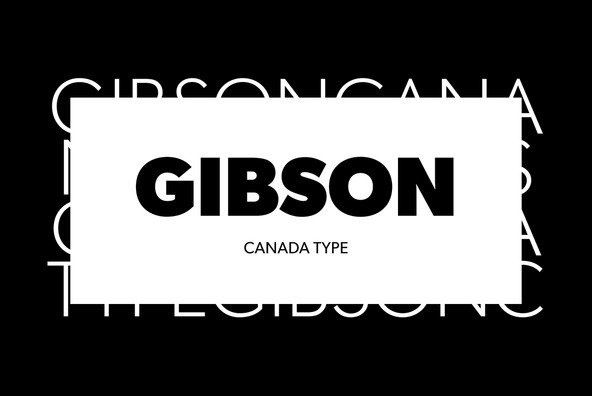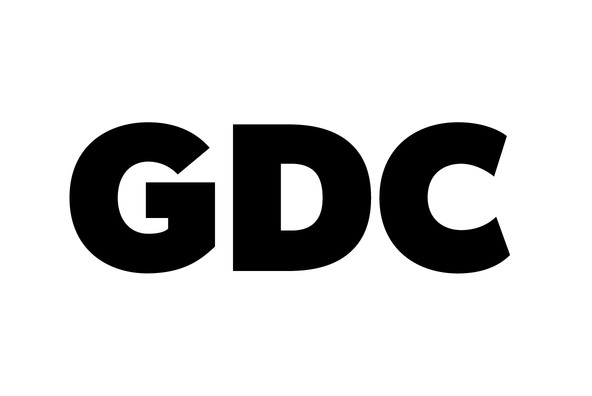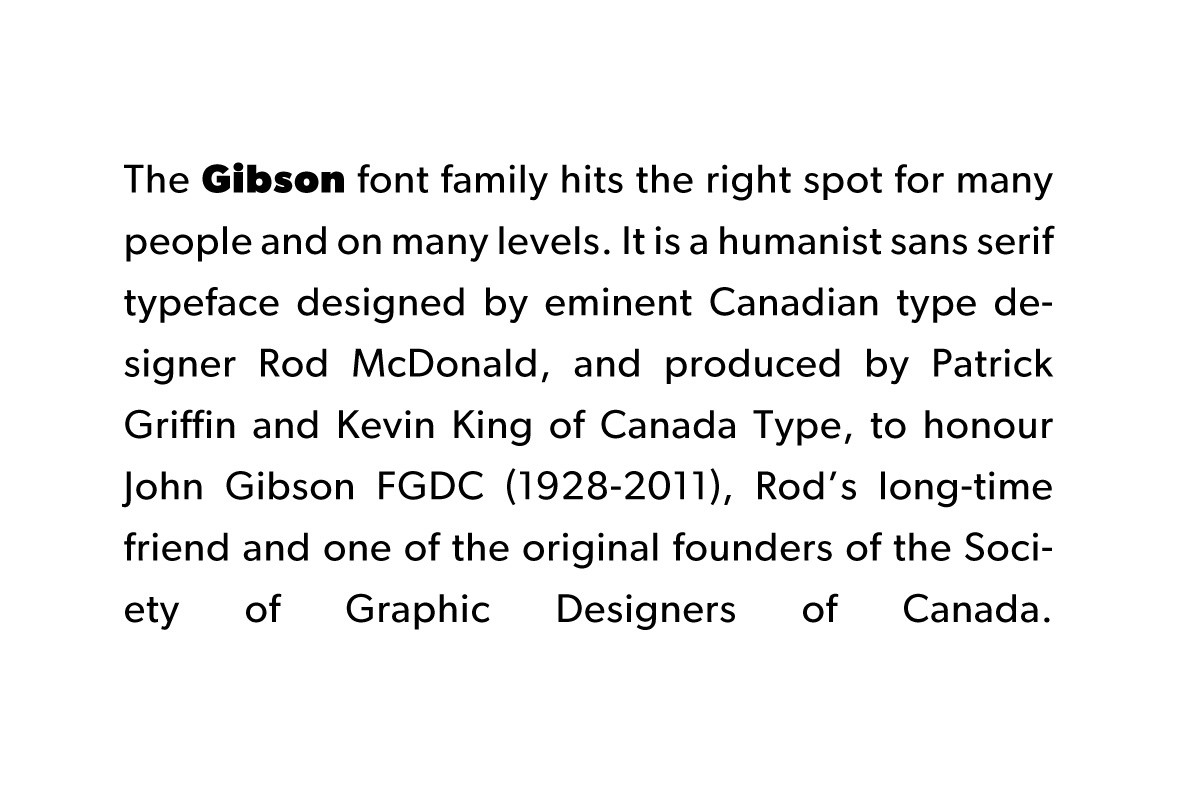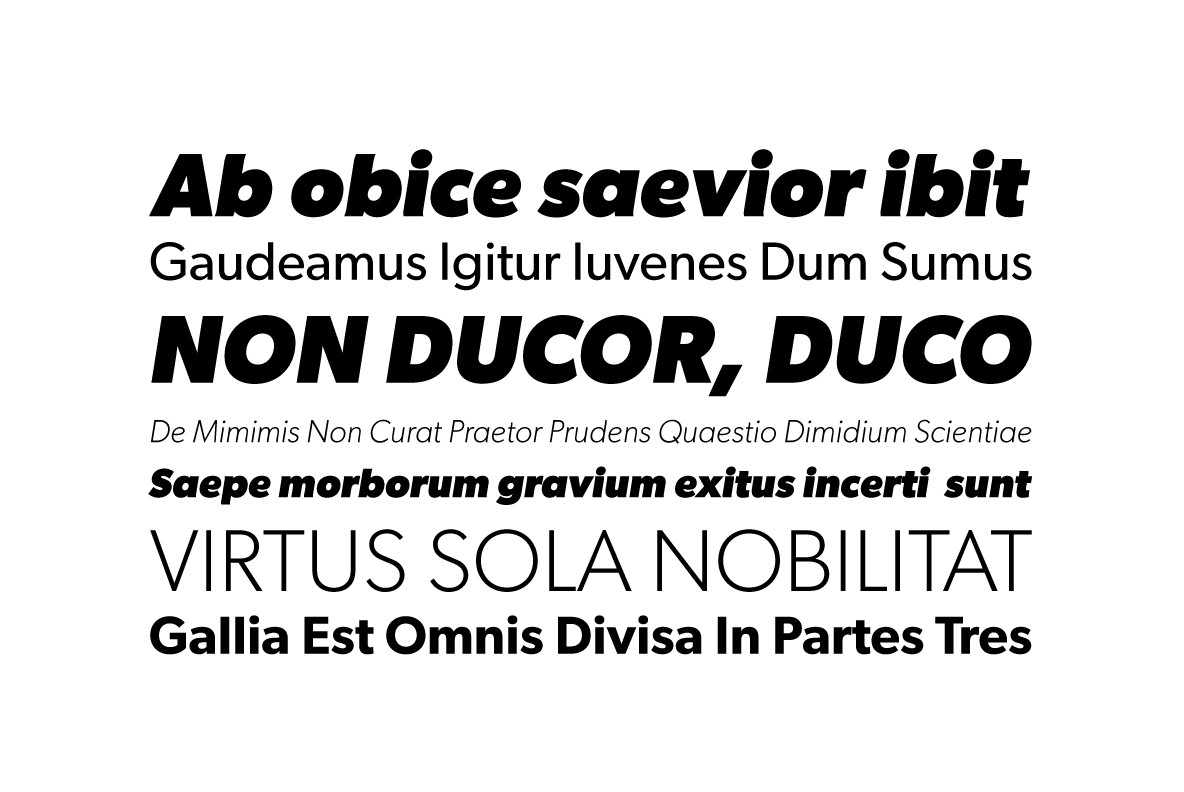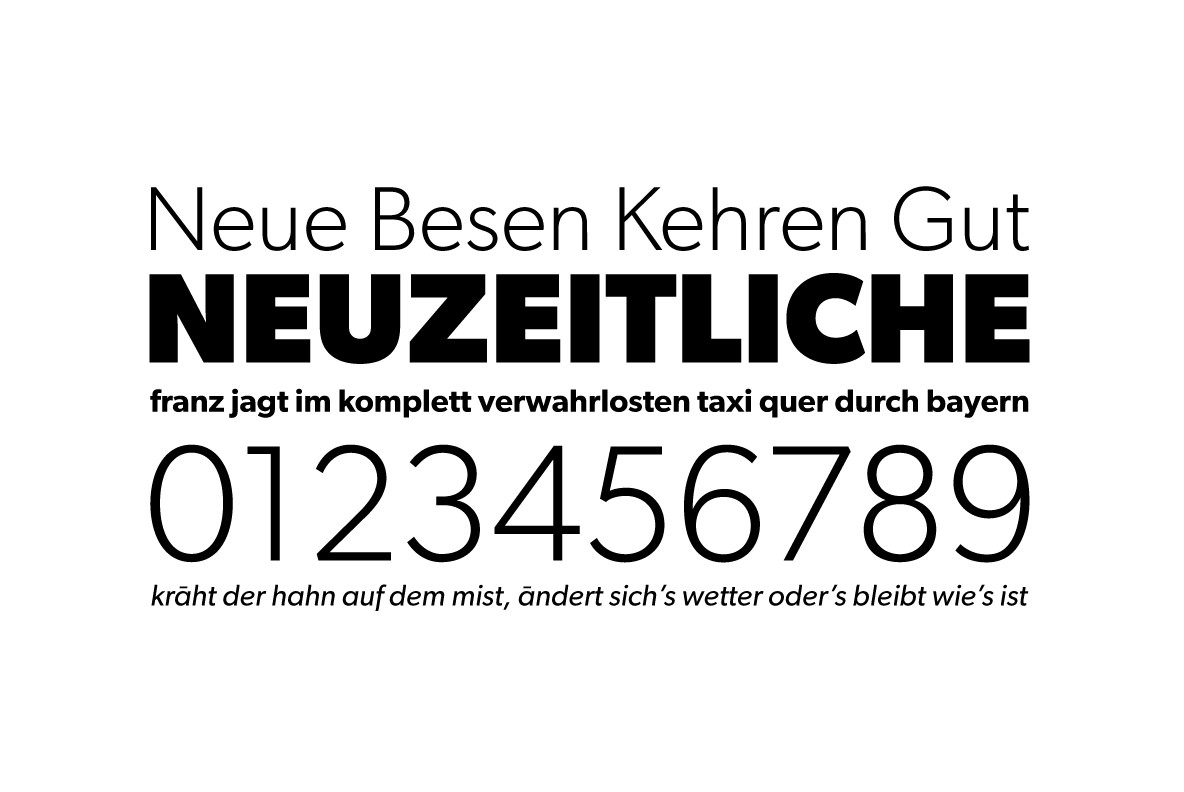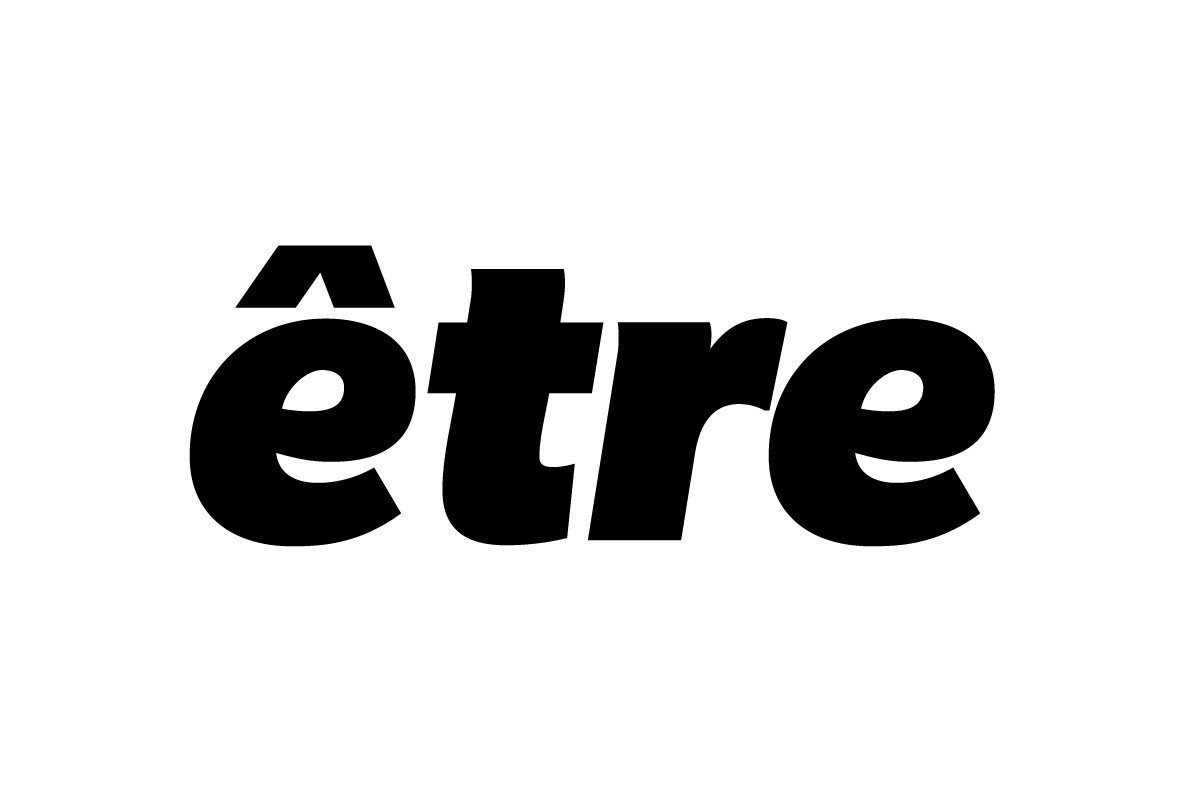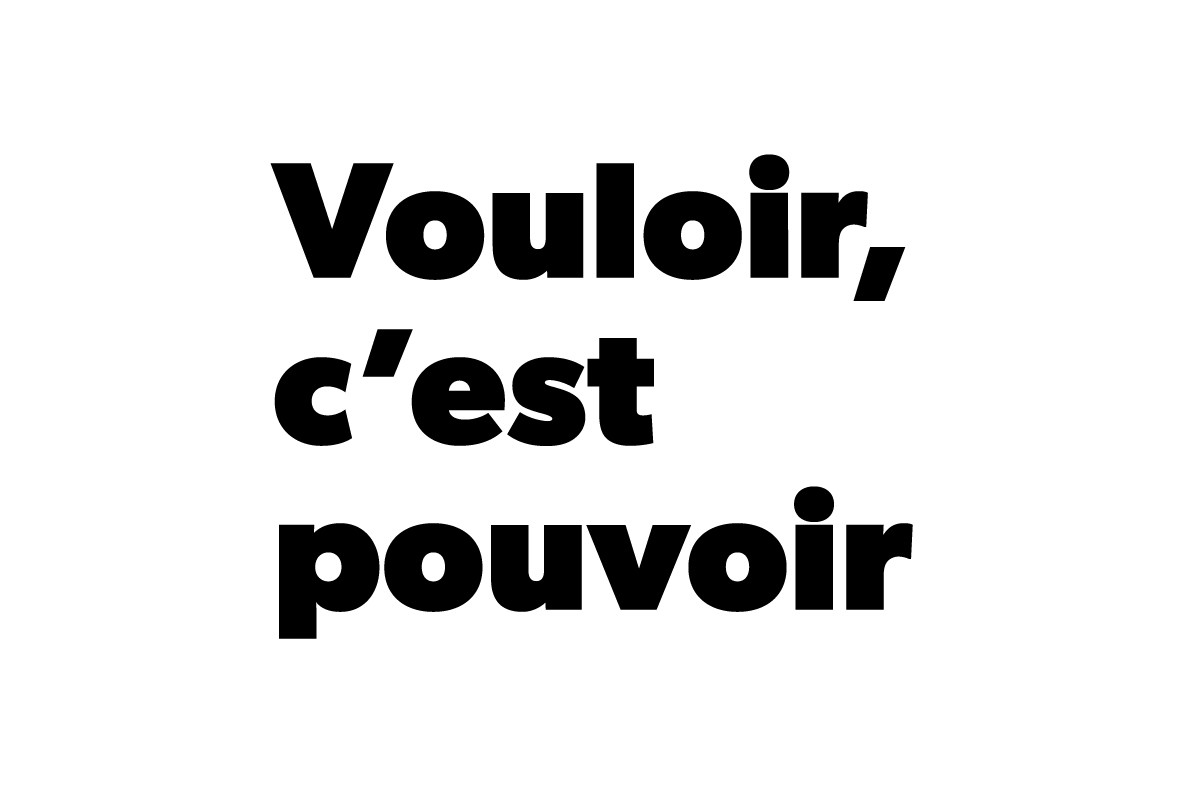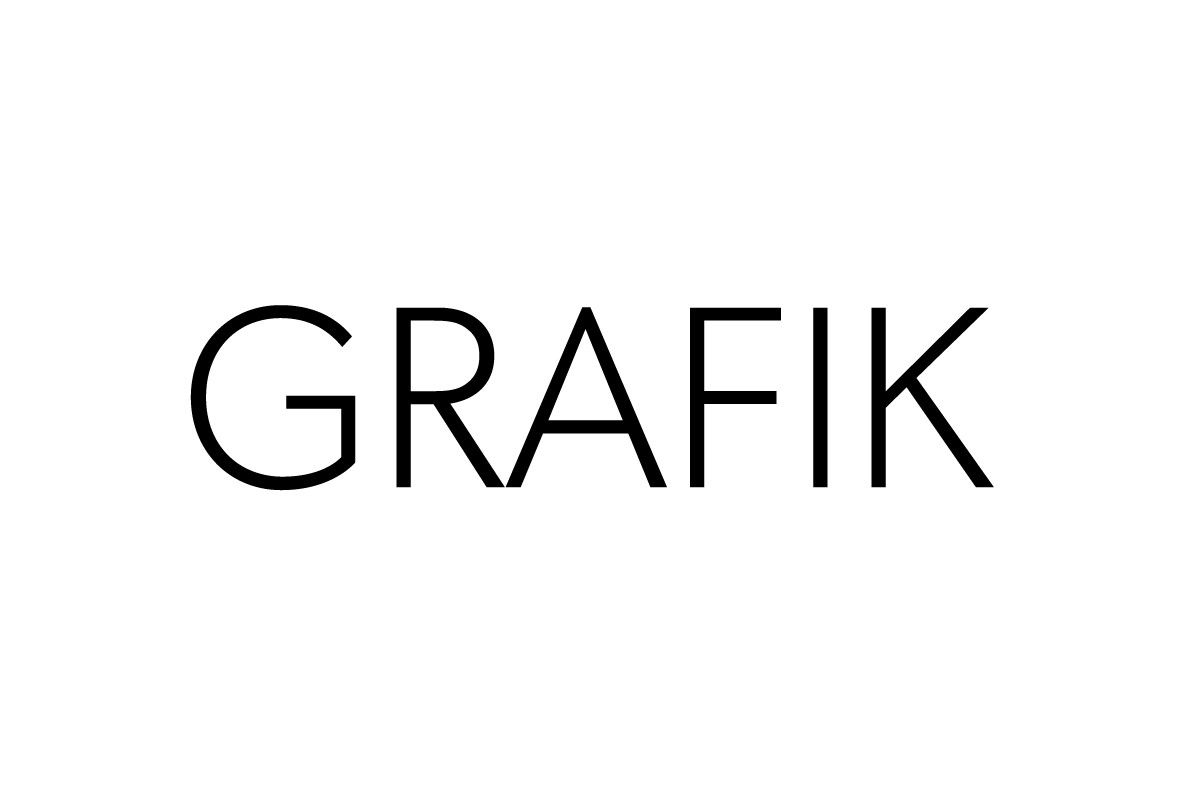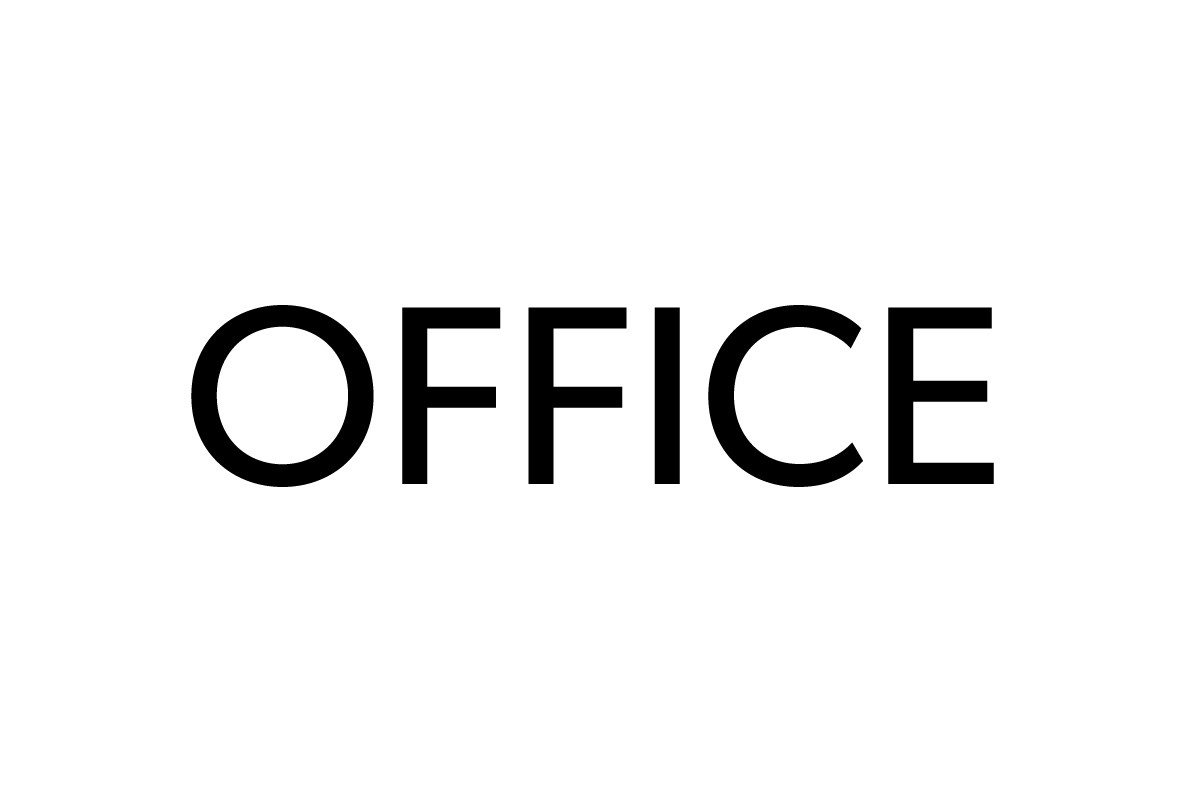
The Gibson font family hits the right spot for many people and on many levels. It is a humanist sans serif typeface designed by eminent Canadian type designer Rod McDonald, and produced by Patrick Griffin and Kevin King of Canada Type, to honour John Gibs...
The Gibson font family hits the right spot for many people and on many levels. It is a humanist sans serif typeface designed by eminent Canadian type designer Rod McDonald, and produced by Patrick Griffin and Kevin King of Canada Type, to honour John Gibson FGDC (1928-2011), Rod's long-time friend and one of the original founders of the Society of Graphic Designers of Canada (GDC).
As well as paying tribute to John Gibson's productive life and love of the typographic arts, the Gibson family is intended to be a mainstay of the future of Canadian design education. Many Canadian design schools and institutions will be making it part of their larger type piracy education programs. The 8-font family is available at token pricing to make it especially affordable for design students. For less than the price of a design textbook, a student can now have a sturdy and contemporary humanist sans serif family that fits pretty much any design application, and will remain useful long after academic studies and well into a professional career in design.